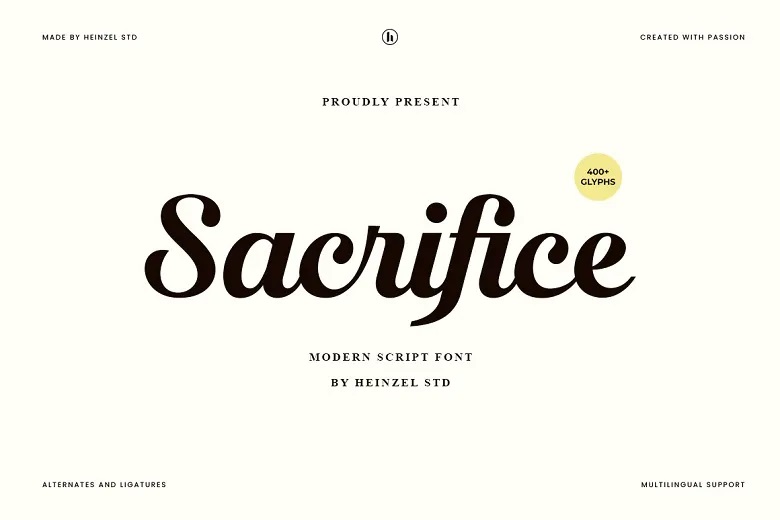
Sacrifice Font
Sacrifice is a script style font type which has a touch of the old and classic. It has its numerous alternate characters, swash, ligature, and tail. These make Sacrifice very versatile in my opinion. You can easily come up with an excellent and distinctive typographic form and shape it as you want. It is ideally applicable for logo designing, lettering artwork, t-shirt graphic designing, general illustrations of magazines, newspapers, etc.
Sacrifice Script Font